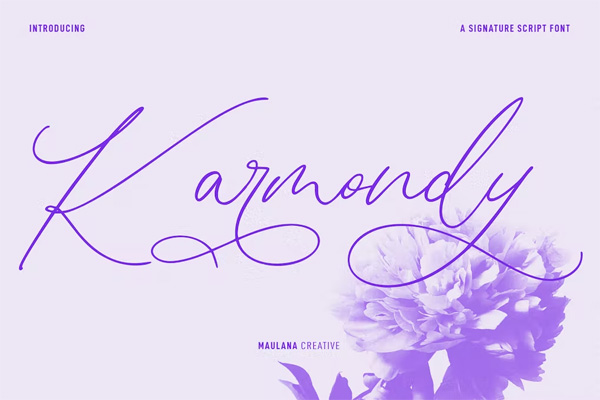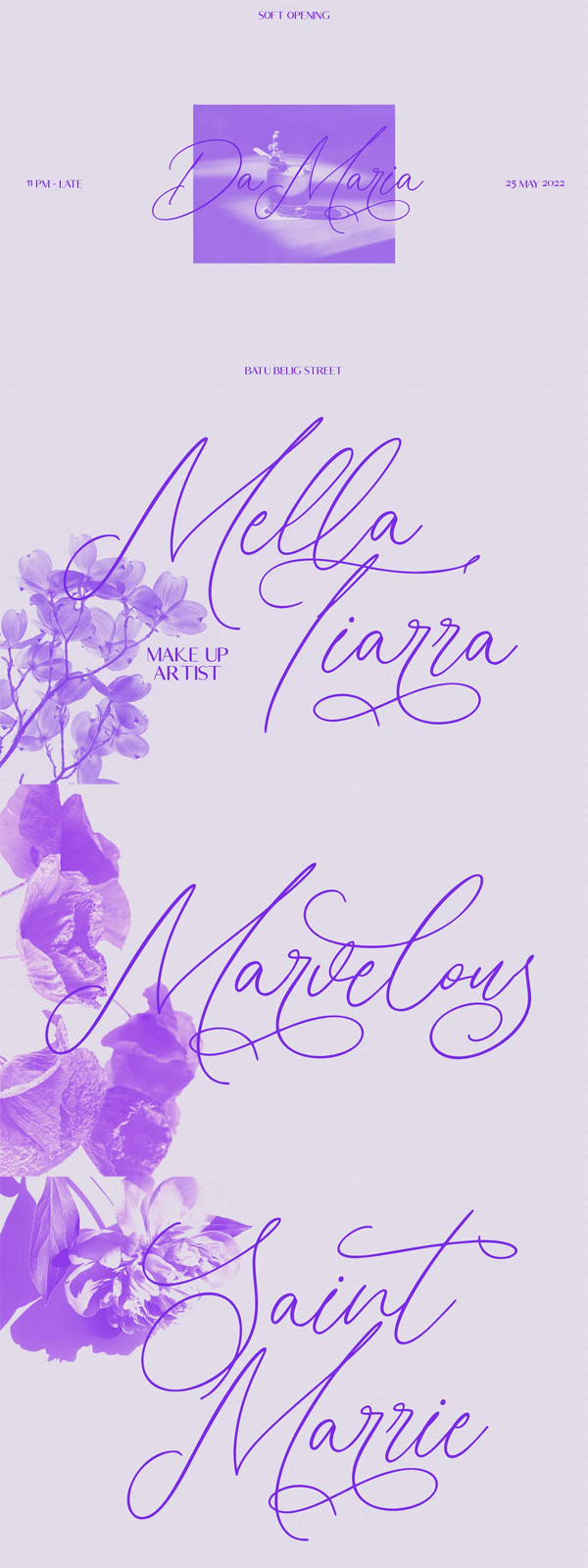
Karmondy Signature Script Font
Here in this post, you can Free Download Karmondy Signature Script Font compress files through the below link. Karmondy is a beauty-casual script font. With a light contrast line, a funny character with a few ligatures and stylistic alternatives. To enable you to do additional creative work. Karmondy fonts support multilingual more than 100 languages. This font is good for logo design, social media, movie title, book title, a short text, even a long text letter and good for your secondary text font with sans or serif. Do some stunning work with the Karmondy font. You Can Also Download Rollcore’s Script Font.
Karmondy Signature Script Font